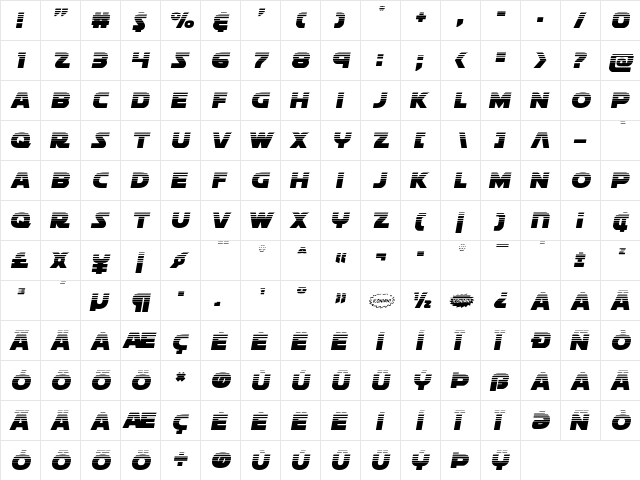
Soloist Halftone Regular
Design Context for Soloist Halftone Typeface
Soloist Halftone is a composed and adaptable typeface that performs quietly and consistently across a wide range of design contexts.